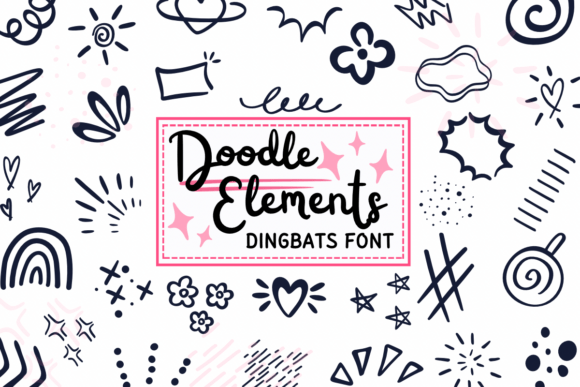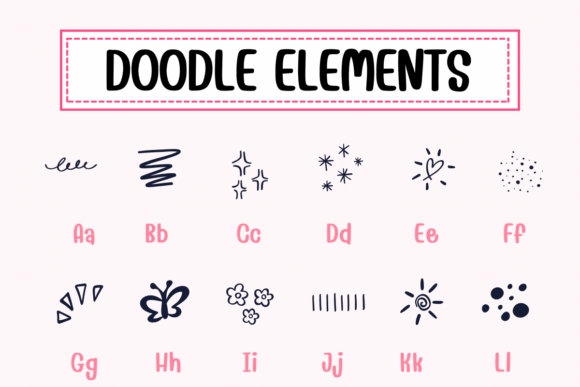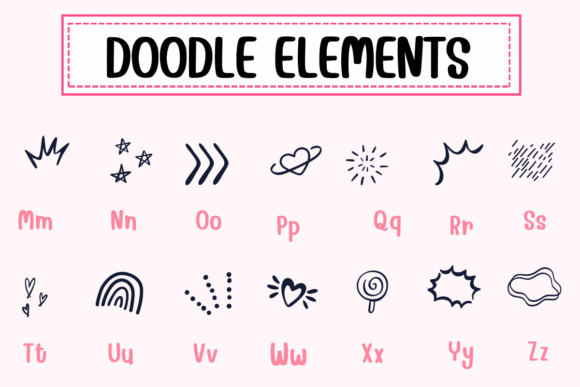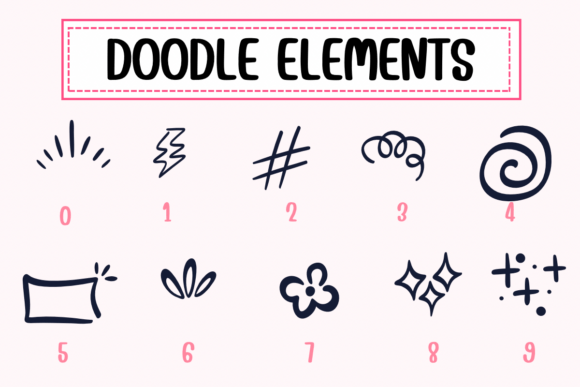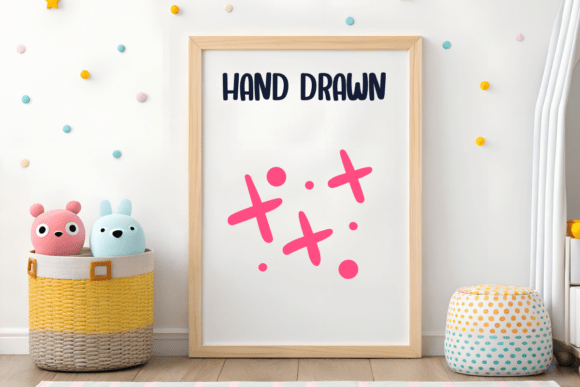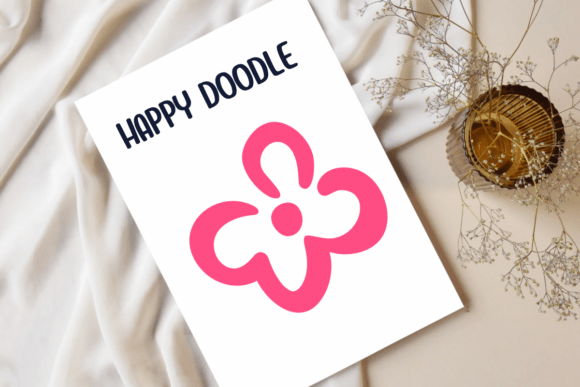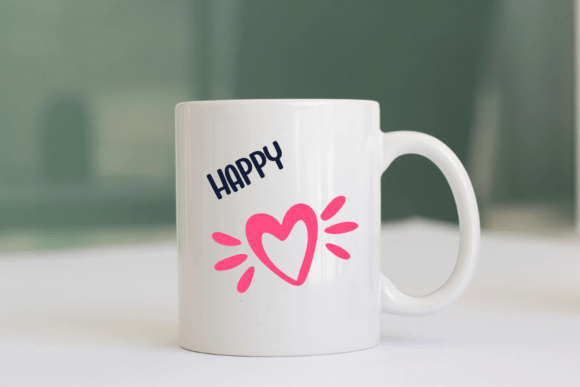
The Power of Hand-Drawn Elements in Design
Have you ever sat down with a blank canvas or sheet of paper, feeling the thrill of creation coursing through your veins? The possibilities seem endless, and your imagination runs wild with ideas for your next project. For designers and crafty individuals, this moment is a sacred one – a time to let your creativity shine and bring your vision to life.
Enter the Doodle Elements Font, a dingbats font that brings a playful, sketchy vibe to your designs. With its whimsical style, this font is perfect for adding a personal touch to wedding invitations, DIY projects, and more. Whether you’re a seasoned designer or a crafting enthusiast, the Doodle Elements Font is a valuable tool to have in your arsenal, offering endless possibilities for creative expression.
Doodle Elements Font Key Features
- Unique Characteristics: Doodle Elements Font features a hand-drawn, whimsical design with intricate details and textures, adding a touch of personality to any project.
- Font Style: Script and Handwritten, allowing for a variety of artistic expressions and styles.
Doodle Elements Font Review
I recently had the chance to work with the Doodle Elements Font, and I must say it’s been an interesting experience. ✨ One thing that really stands out is the unique, hand-drawn feel of the font. It’s perfect for adding a touch of whimsy and personality to your designs. The font also comes with a wide range of elements, from icons to graphics, that can be easily customized and combined to create a wide variety of looks.
Another advantage of the Doodle Elements Font is its versatility. ✨ It’s suitable for both digital and print projects, making it a great choice for designers who work on a wide range of mediums. The font is also highly customizable, allowing you to adjust the size, color, and layout of the elements to fit your specific needs.
- ⚠️ Limited character set: While the font comes with a wide range of elements, the character set is relatively small. This may be a problem for designers who need to typeset large blocks of text.
- ⚠️ Some elements may not be scalable: While the font is highly customizable, some elements may not be scalable, which can make them difficult to use in larger designs.
Overall, I’m impressed with the Doodle Elements Font. While it may have some limitations, its unique feel and versatility make it a great choice for designers who want to add a touch of personality to their work. With a little creativity and experimentation, I think this font has the potential to be a real game-changer.
The Doodle Elements Font is perfect for creating whimsical and playful designs, such as children’s book illustrations, party invitations, and social media graphics. It’s also great for adding a touch of personality to corporate presentations and documents.